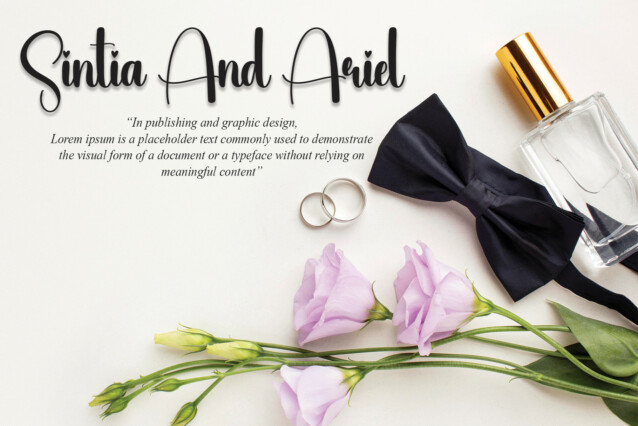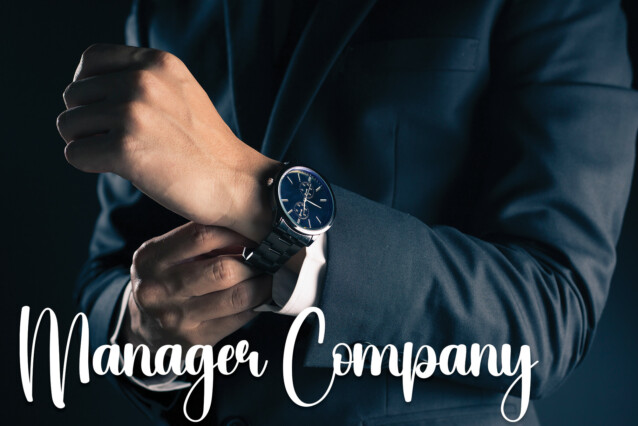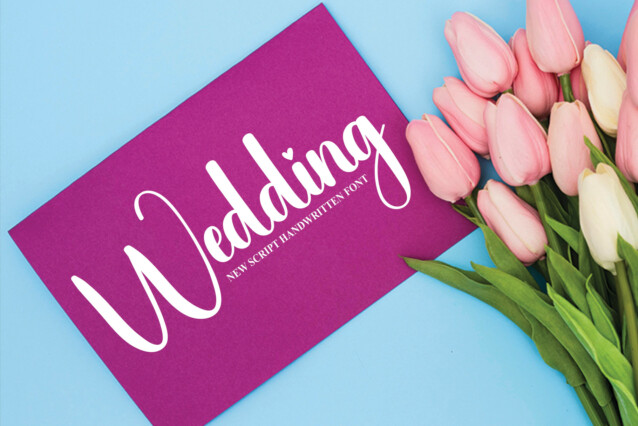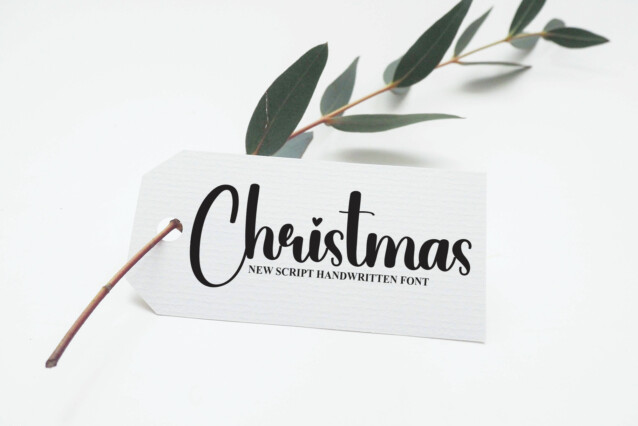
Ruddy Face Script Font
Ruddy Face Script Font is a cool and casual handwritten font. Whether you’re using it for crafts, digital design, presentations, or making greeting cards, this font has the potential to become your favorite go-to font, no matter the occasion.